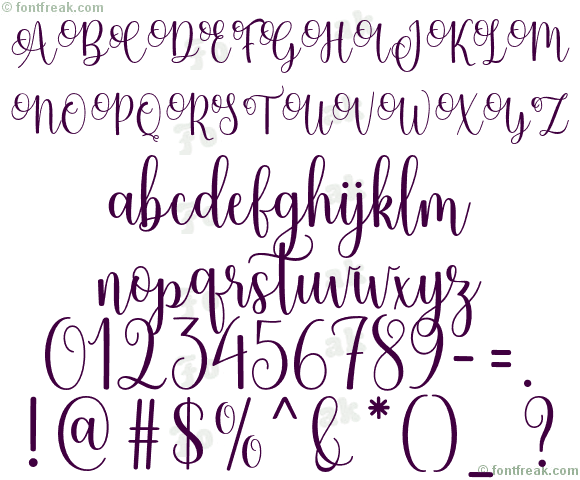
Gabrina-Regular
About Gabrina-Regular
Gabrina-Regular, designed by Aqeela Studio, is a stunning script font that exudes elegance and charm. With its flowing, cursive style, this font is perfect for creating a warm and inviting atmosphere in your designs. Characterized by its moderate stroke weight and graceful curves, Gabrina-Regular offers a beautiful contrast between thick and thin lines, making it visually appealing and easy to read. The generous spacing between the letters enhances its legibility, allowing it to shine in both large headings and smaller text.
Ideal for a variety of applications, Gabrina-Regular is particularly well-suited for wedding invitations, where its romantic flair can set the perfect tone for the special day. It also works beautifully on greeting cards, adding a personal touch to heartfelt messages. Restaurant menus can benefit from its sophisticated style, enticing diners with an elegant presentation of dishes. In addition, this font can elevate branding materials for small business owners looking to convey a friendly yet professional image, making it a versatile choice for modern marketing.
What sets Gabrina-Regular apart is its ability to blend artistry with functionality. Its distinctive script style captures attention while remaining practical for various uses. Whether you are designing a beautiful invitation or crafting a memorable brand identity, the Gabrina-Regular font free download provides an exceptional typographic solution that stands out in any creative endeavor.